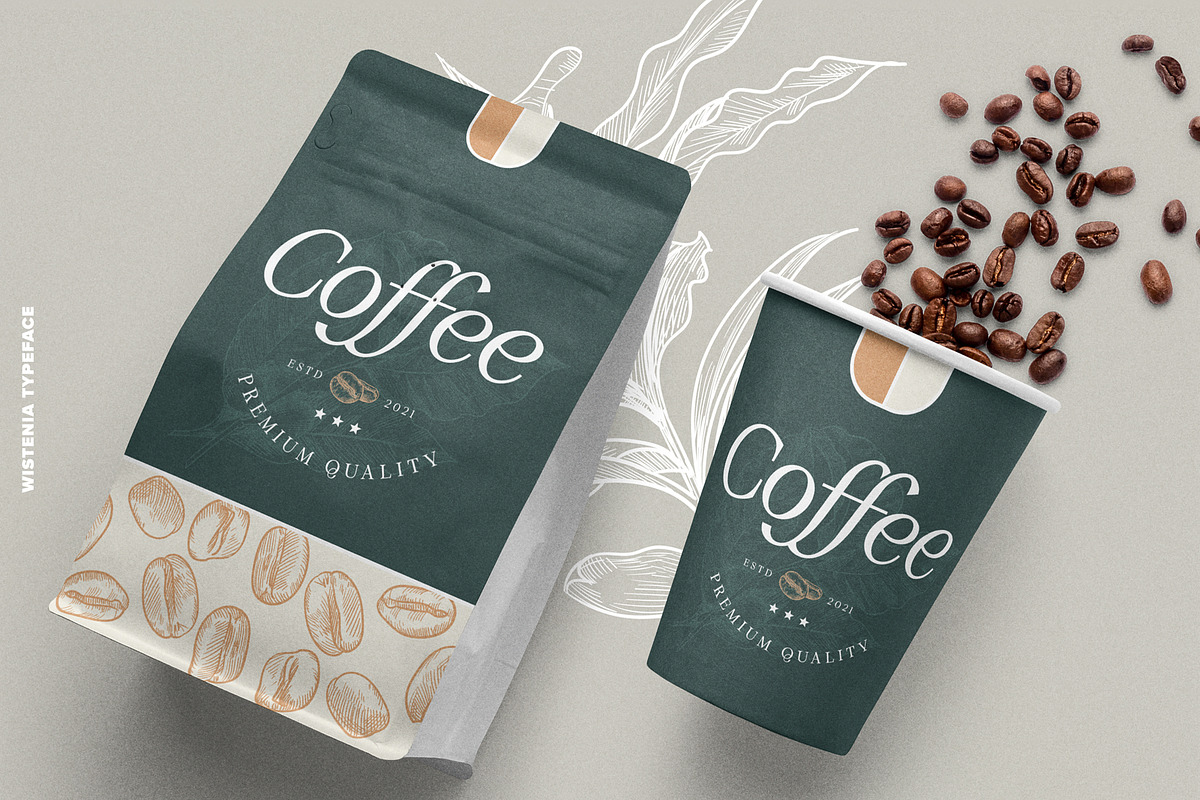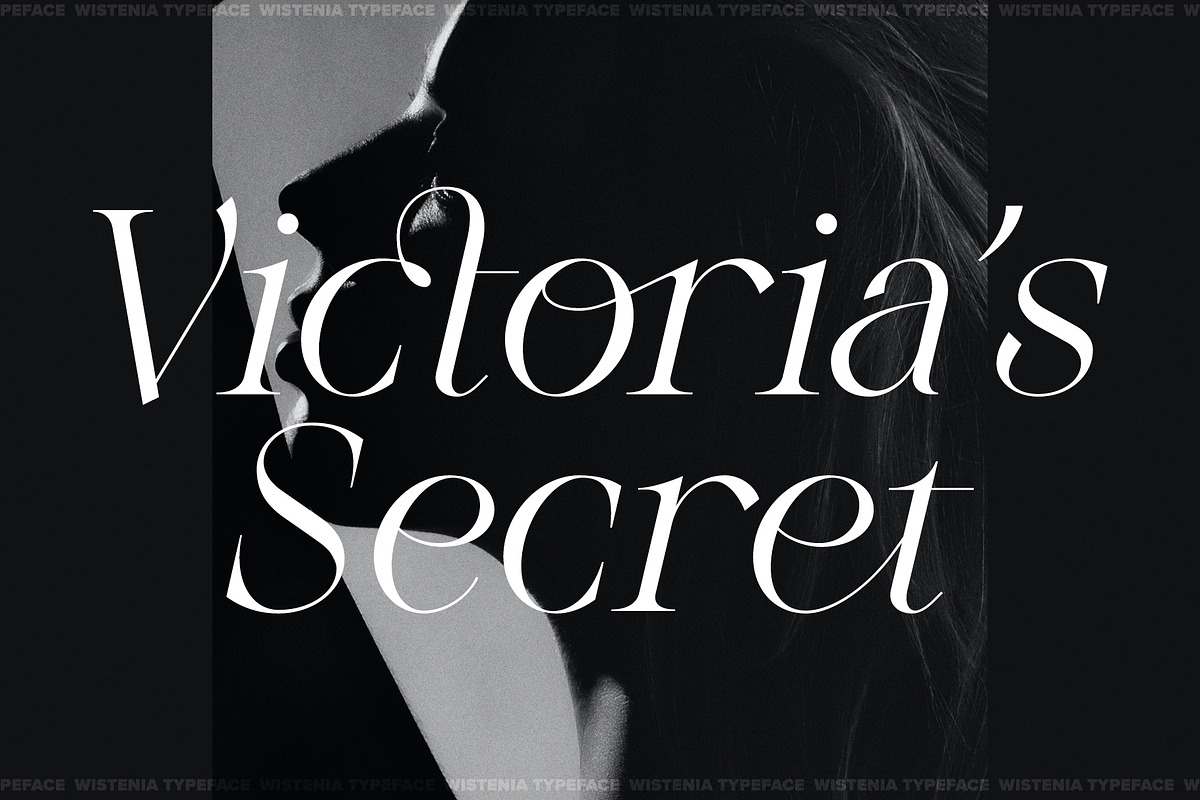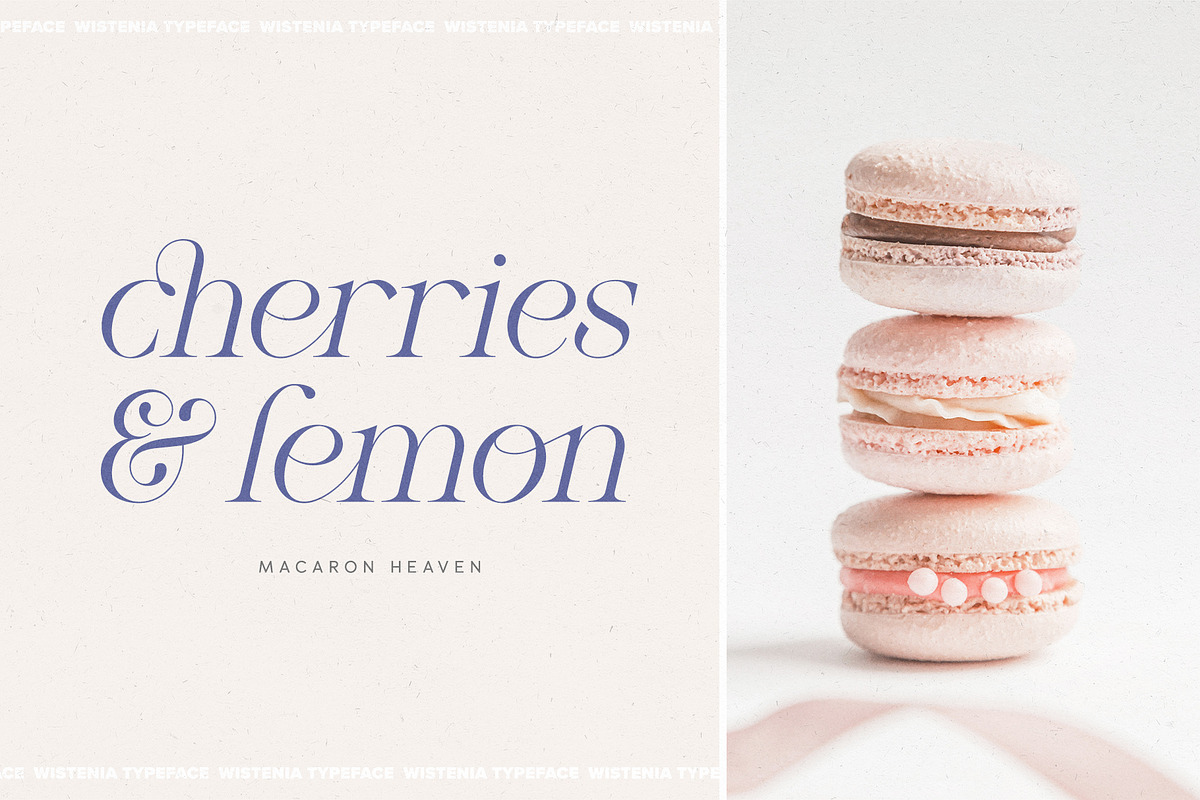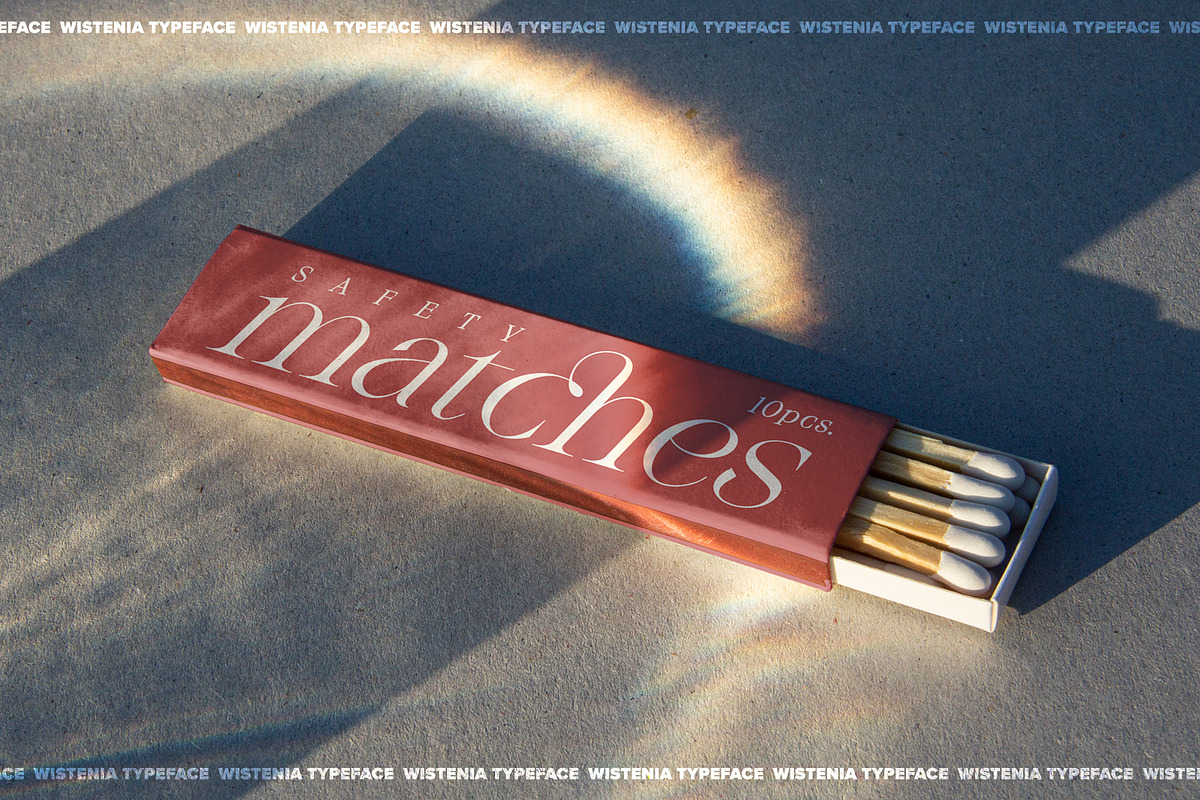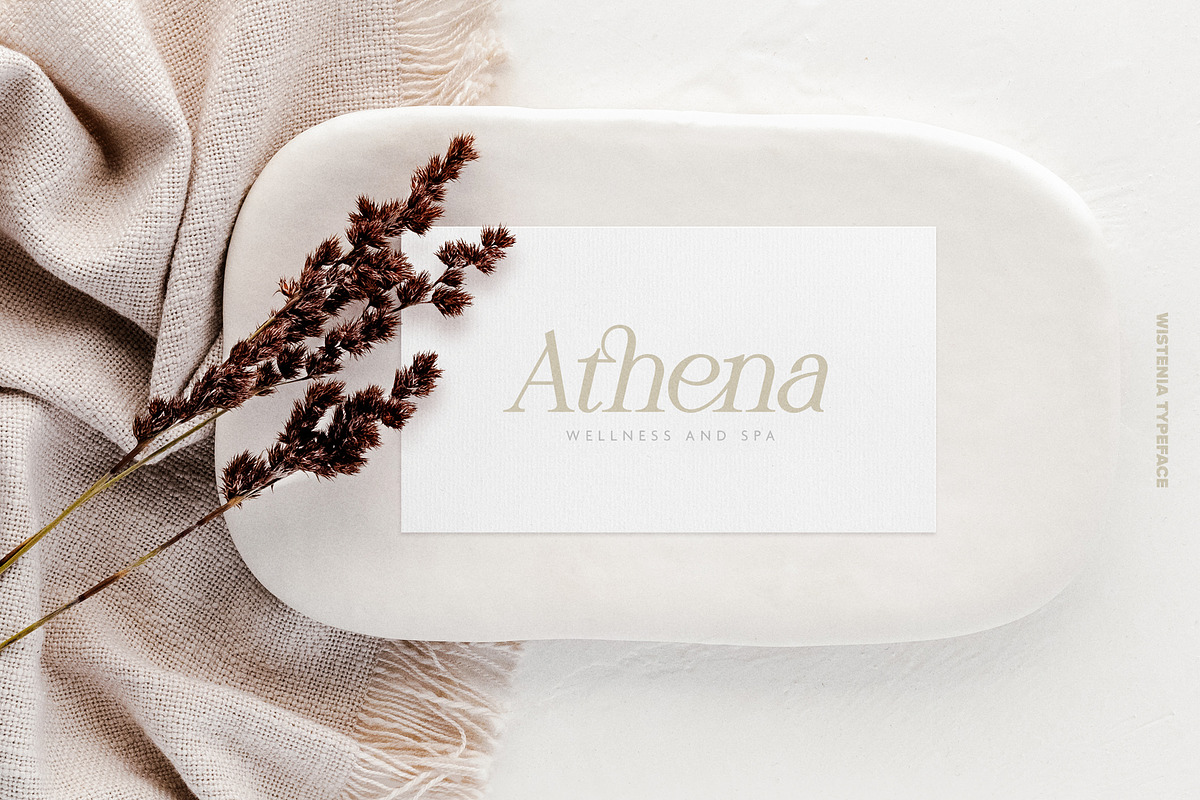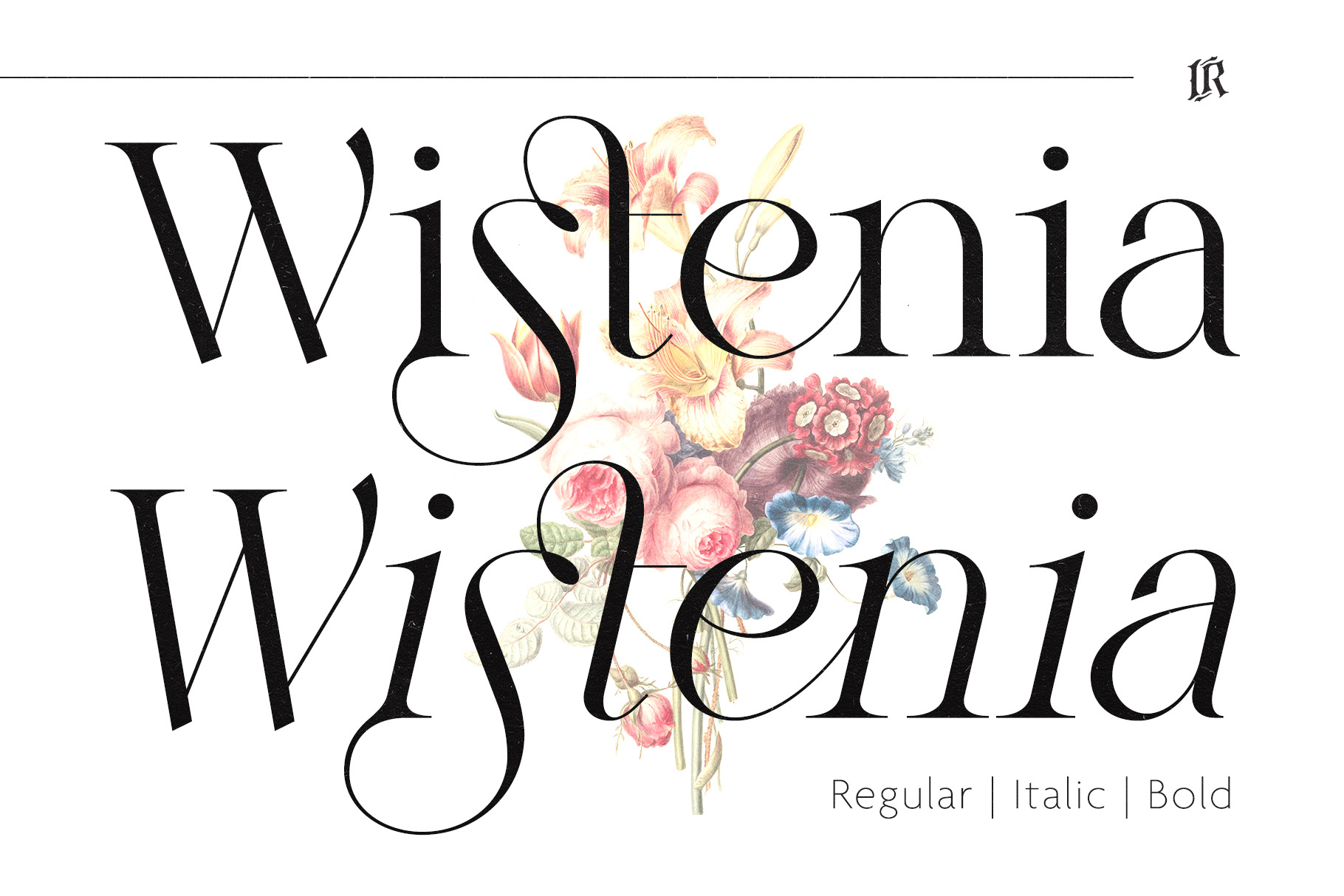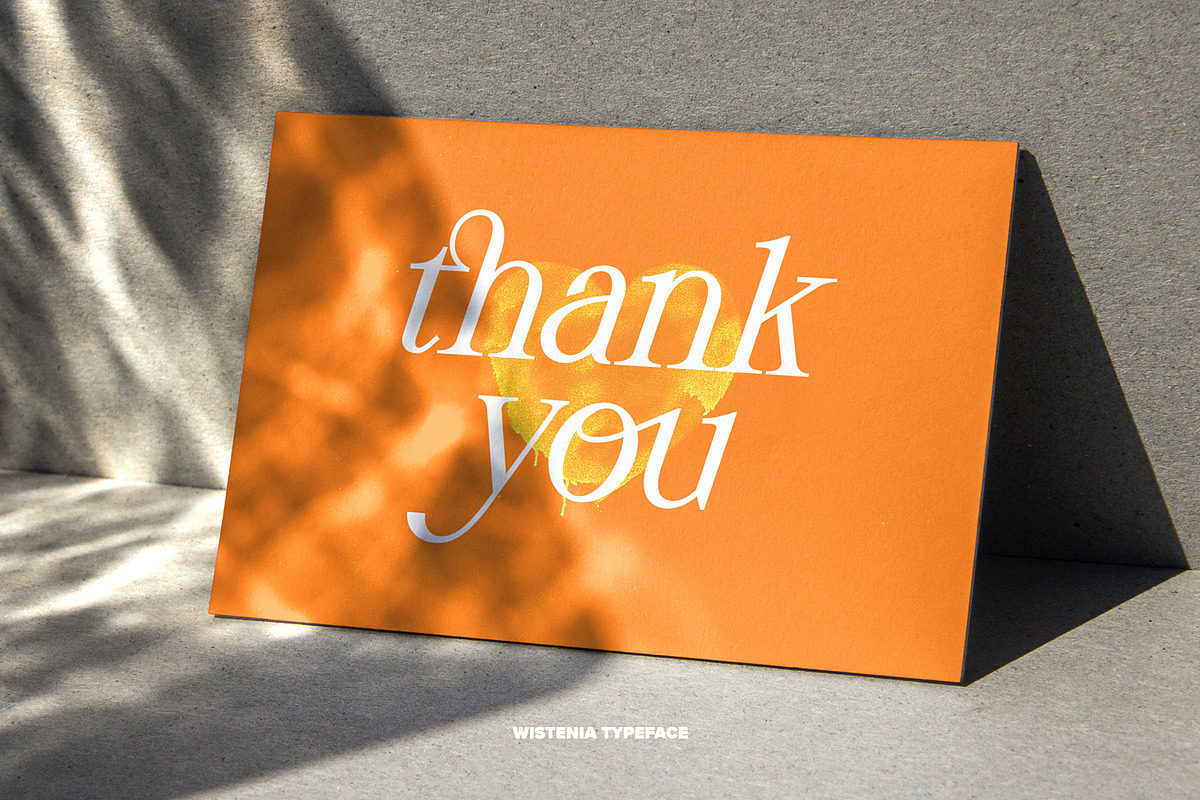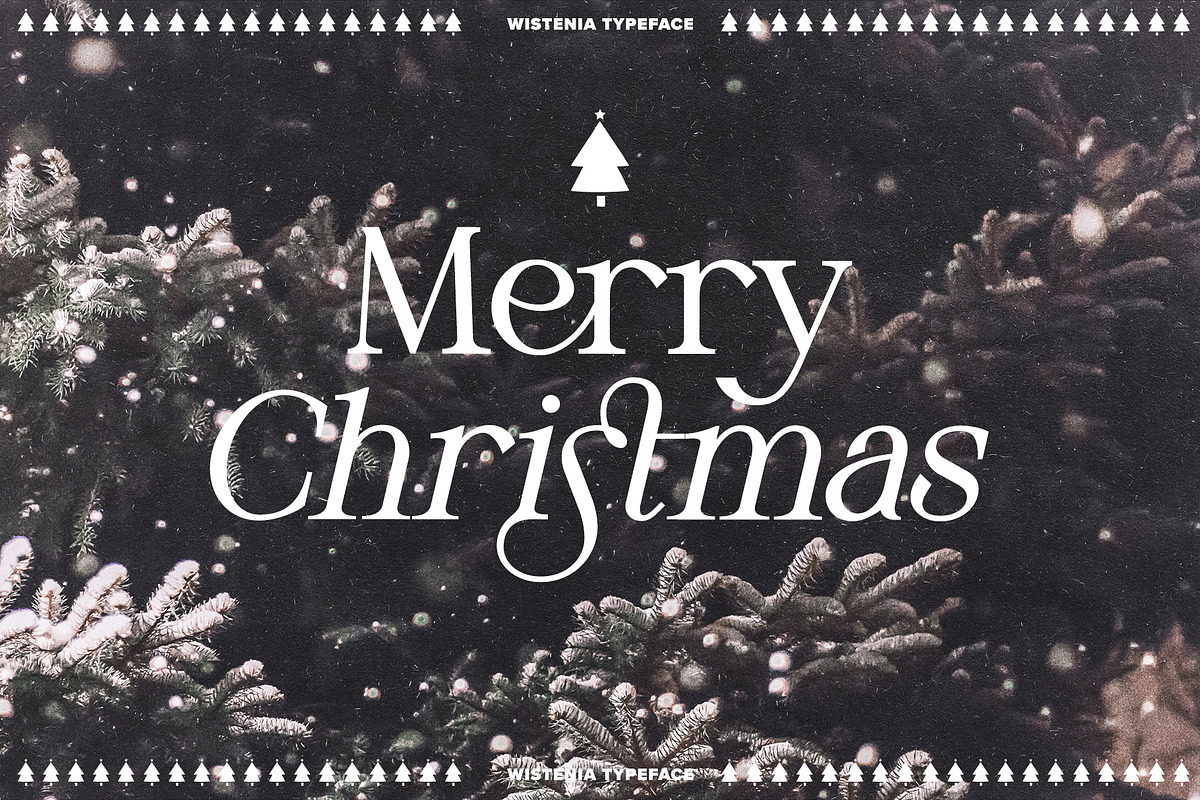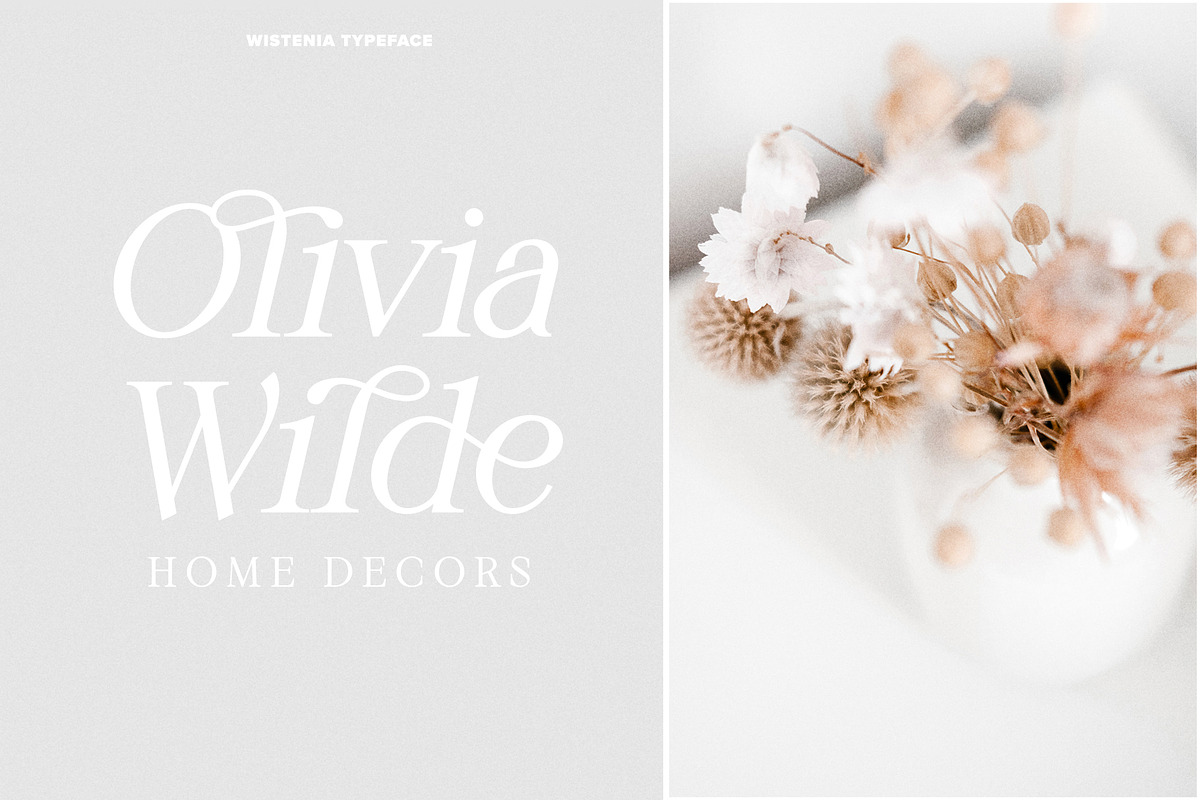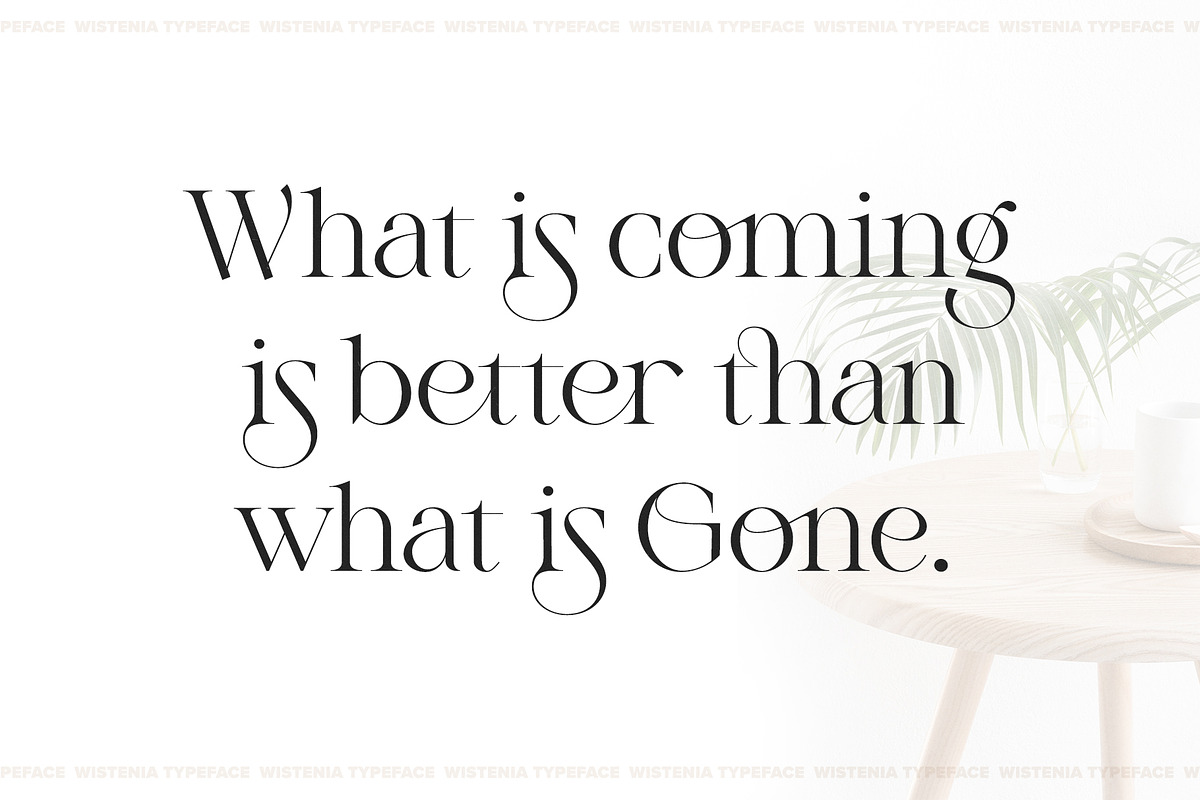
Wistenia Typeface
Wistenia is a stylish ligature rich typeface inspired by fashion magazines and fragrance brands. Wistenia contains more than 80 LIGATURES.
Wistenia Typeface is made mainly for short headlines and titles, but it looks great in advertising, vintage mood board, branding, logotypes, packaging, titles, editorial design and modern and vintage design.